In metal typesetting, a font is a particular size, weight, and style of a typeface, defined as the set of fonts that share an overall design. For instance, the typeface Bauer Bodoni (shown in the figure) includes fonts "Roman 12pt" (or "regular"), "bold 12pt" and "italic 12pt"; each of these styles is also available in a range of other common sizes. In traditional printing, fonts were physically created using metal or wood type, with a font for each size.
In the modern era of (computer fonts), the terms font and typeface are often used interchangeably.[1] When distributed digitally, each style is typically stored in a separate digital font file, which includes the various sizes of that style. Most digital fonts are scalable, and some typesetting software allows the user to scale the type beyond those sizes specified in the file. While the various sizes of a typeface often use identical letterforms, it is not uncommon for a typeface to feature different design elements to aid readability or impact at especially large or small sizes.
Spelling and etymology
editThe word font (US) or fount (traditional UK; in any case pronounced /fɒnt/) derives from Middle French fonte, meaning "cast iron".[2] The term refers to the process of casting metal type at a type foundry.
The spelling font, originally used only in the United States, is now the accepted one. Fount, historically used in the UK and Commonwealth countries,[3] is considered archaic.[citation needed]
Metal type
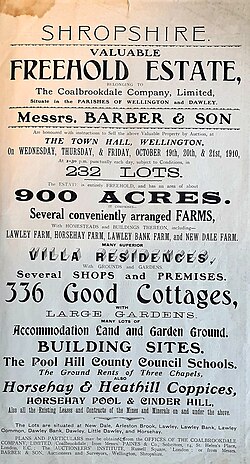
In a manual printing (letterpress) house the word "font" would refer to a complete set of metal type that would be used to typeset an entire page. Upper- and lowercase letters get their names because of which case the metal type was located in for manual typesetting: the more distant upper case or the closer lower case. The same distinction is also referred to with the terms majuscule and minuscule.
Unlike a digital typeface, a metal font would not include a single definition of each character, but commonly used characters (such as vowels and periods) would have more physical type-pieces included. A font when bought new would often be sold as (for example in a Roman alphabet) "12pt 14A 34a", meaning that it would be a size 12-point font containing 14 uppercase "A"s, and 34 lowercase "a"s.
The rest of the characters would be provided in quantities appropriate for the distribution of letters in that language. Some metal type characters required in typesetting, such as dashes, spaces and line-height spacers, were not part of a specific font, but were generic pieces that could be used with any font.[4] Line spacing is still often called "leading", because the strips used for line spacing were made of lead (rather than the harder alloy used for other pieces). This spacing strip was made from lead because lead was a softer metal than the traditional forged metal type pieces (which was part lead, antimony and tin) and would compress more easily when "locked up" in the printing "chase" (i.e. a carrier for holding all the type together).
In the 1880s–1890s, "hot lead" typesetting was invented, in which type was cast as it was set, either piece by piece (as in the Monotype technology) or in entire lines of type at one time (as in the Linotype technology).
Characteristics
editIn addition to character height, when using the mechanical sense of the term, there are several other characteristics which may distinguish fonts, though they would also depend on the script(s) that the typeface supports. In European alphabetic scripts, i.e. Latin, Cyrillic, and Greek, the main such properties are the stroke width, called weight, the style or angle, and the character width.
The regular or standard font is sometimes labeled roman, both to distinguish it from bold or thin and from italic or oblique. The keyword for the default, regular case is often omitted for variants and never repeated, otherwise it would be Bulmer regular italic, Bulmer bold regular and even Bulmer regular.[clarification needed] Roman can also refer to the language coverage of a font, acting as a shorthand for "Western European".
Different font styles within the same typeface can be used in a single design to enhance readability and emphasis, or in a specific design to make it be of more visual interest.
Weight
editThe weight of a particular font is the thickness of the character outlines relative to their height.
A typeface may come in fonts of many weights, from ultra-light to extra-bold or black; four to six weights are not unusual, and a few typefaces have as many as a dozen. Many typefaces for office, web and non-professional use come with a normal and a bold weight which are linked together. If no bold weight is provided, many renderers (browsers, word processors, graphic and DTP programs) support a bolder font by rendering the outline a second time at an offset, or smearing it slightly at a diagonal angle.
The base weight differs among typefaces; that means one font may appear bolder than another font. For example, fonts intended to be used in posters are often bold by default while fonts for long runs of text are rather light. Weight designations in font names may differ in regard to the actual absolute stroke weight or density of glyphs in the font.
Attempts to systematize a range of weights led to a numerical classification first used in 1957 by Adrian Frutiger with the Univers typeface: 35 Extra Light, 45 Light, 55 Medium or Regular, 65 Bold, 75 Extra Bold, 85 Extra Bold, 95 Ultra Bold or Black. Deviants of these were the "6 series" (italics), e.g. 46 Light Italics etc., the "7 series" (condensed versions), e.g. 57 Medium Condensed etc., and the "8 series" (condensed italics), e.g. 68 Bold Condensed Italics. From this brief numerical system it is easier to determine exactly what a font's characteristics are, for instance "Helvetica 67" (HE67) translates to "Helvetica Bold Condensed".